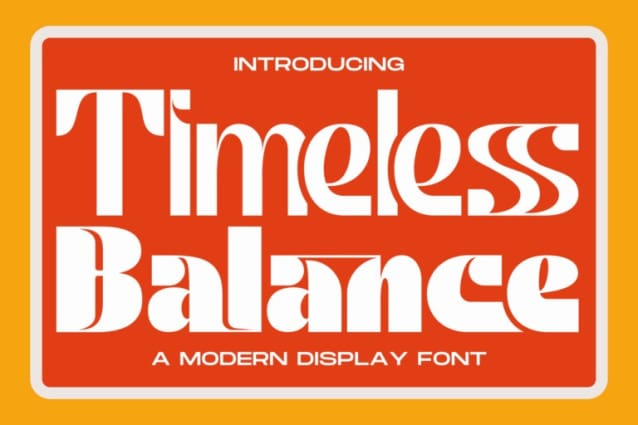
Timeless Balance Font
Timeless Balance Font – A bold font with slim details on certain characters, making it daring and unique. The extra bold sans-serif that makes a statement with every letter. Whether you’re looking to pack a punch in your headlines or bring sleek attitude to your designs, this font does all the heavy lifting. Perfect for those who believe that when it comes to type, bigger and bolder is better. Rough line, handmade make it natural, Use for awesome logos, headlines, posters and anymore with a touch of bubbly style.